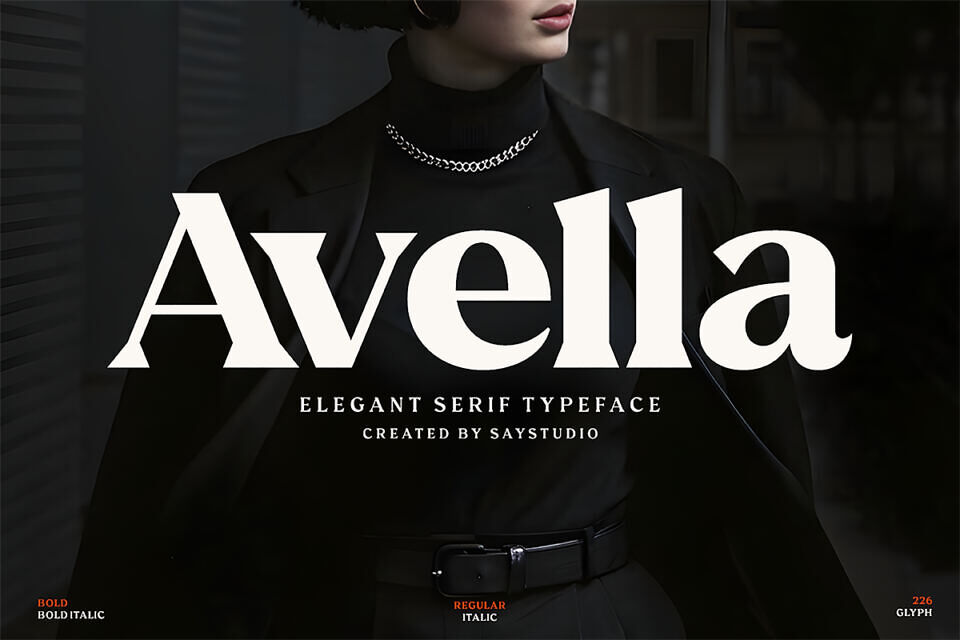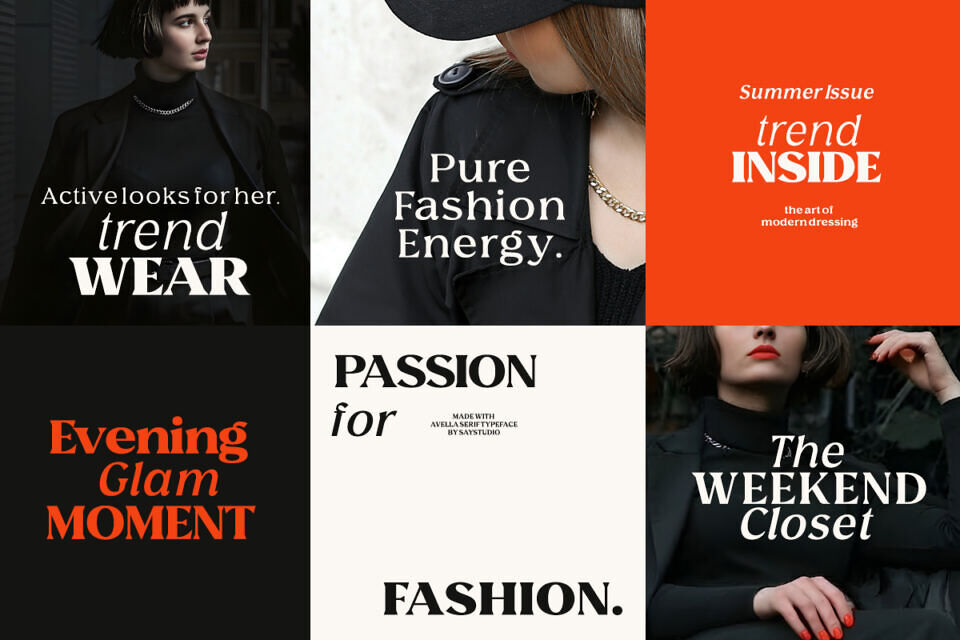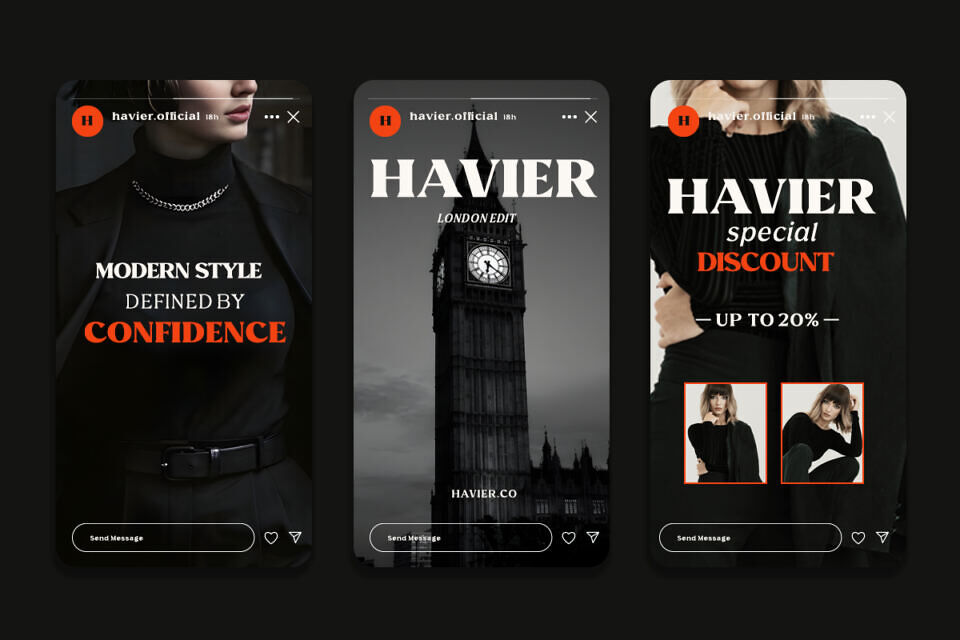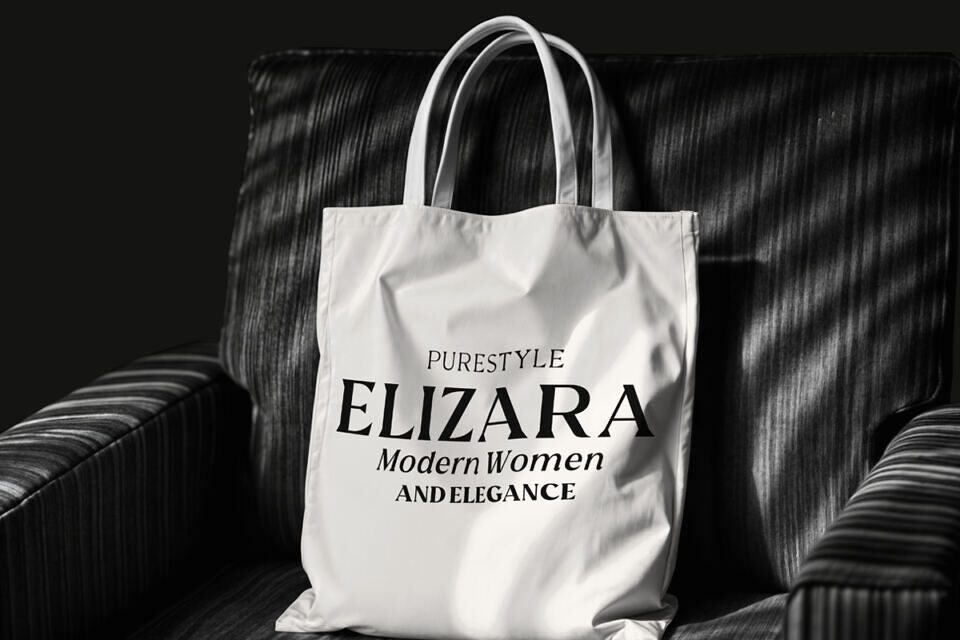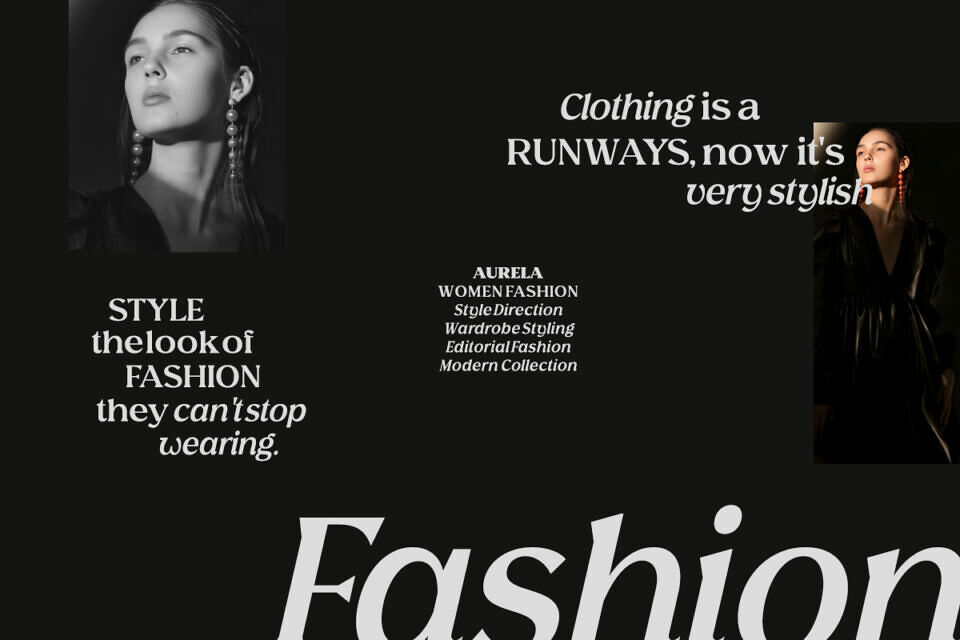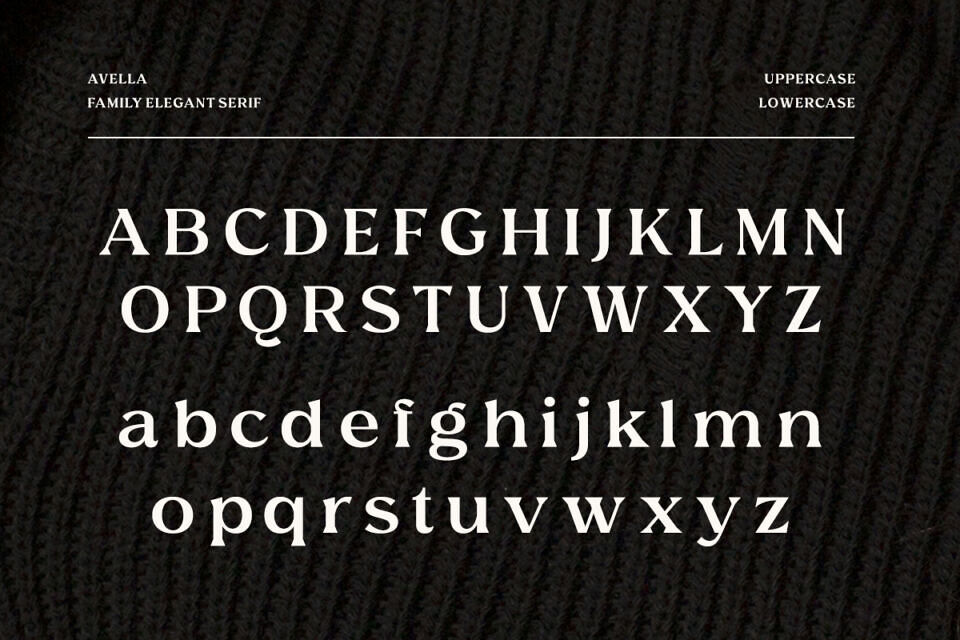
Avella Font
Avella is a modern elegant serif font family designed to deliver sophistication across a wide range of creative applications. This versatility allows designers to create dynamic and cohesive typography systems—whether for editorial layouts, branding, or premium packaging. The smooth transitions between weights ensure consistency while giving full creative control.
Perfect for fashion, magazines, corporate branding, and luxury design, Avella stands out with its timeless elegance and modern flexibility. It’s a reliable choice for designers who want to create impactful, stylish, and professional visual identities.